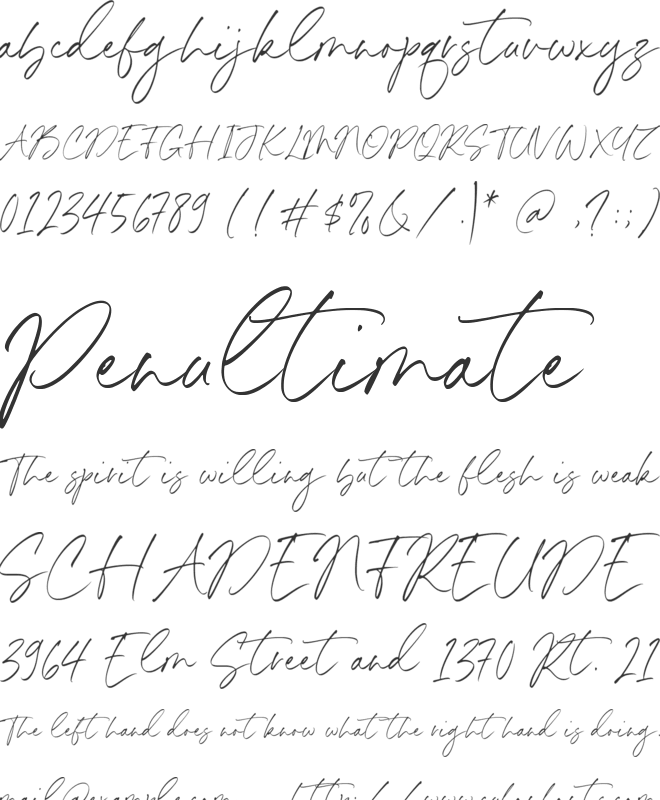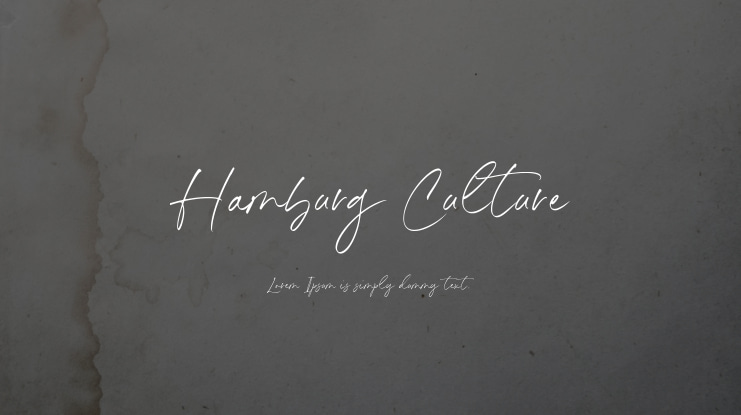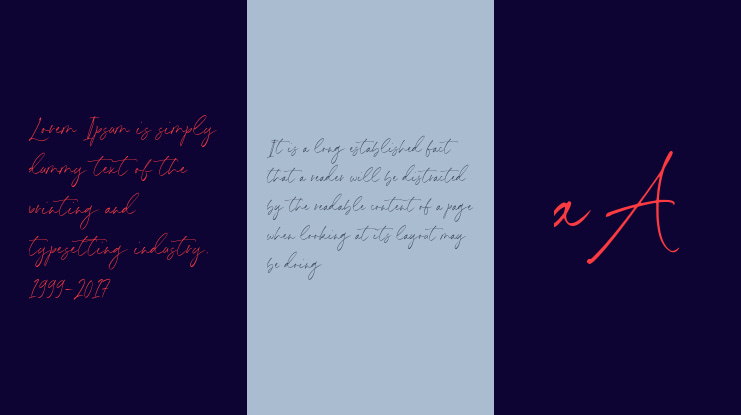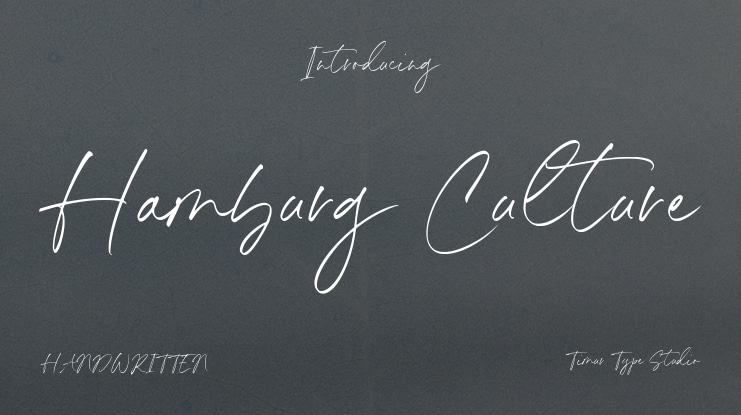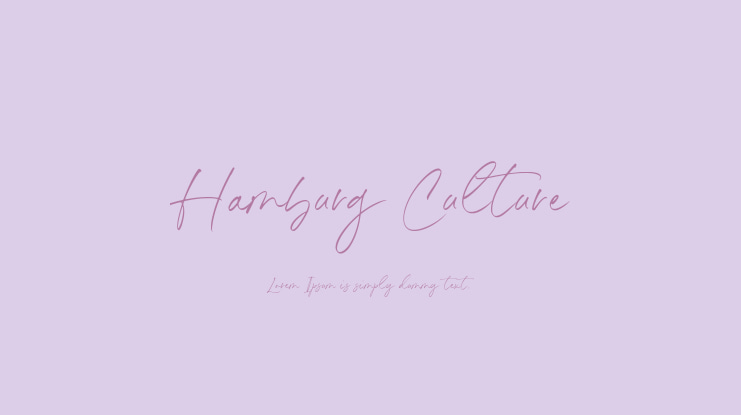
Introduced by Timurtype Studio!
Hamburg Culture is a modern handwritten font designed to capture the essence of urban creativity. Its flowing strokes and dynamic characters evoke a sense of modernity and sophistication, making it perfect for projects that seek a blend of elegance and informality. The font boasts unique alternate ligatures, adding a playful touch and allowing designers to customize typography with distinctive flourishes. Whether used in digital media or print, "Hamburg Culture" infuses artistic flair and versatility, making it ideal for branding, invitations, and editorial designs that crave a fresh, personalized aesthetic.
– Alternate & Ligature
Hamburg Culture also supports multilingualism.
Hamburg Culture Font Features Premium:
- Full set of standard alphabet and punctuation